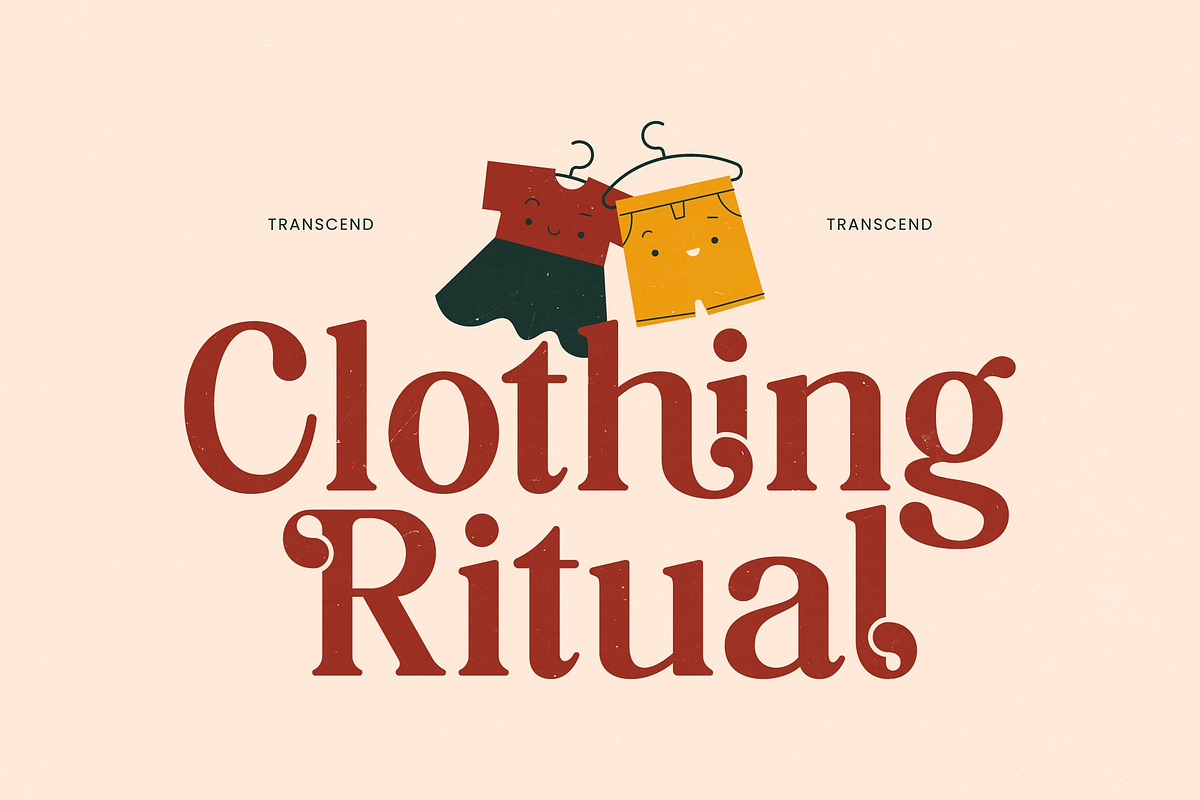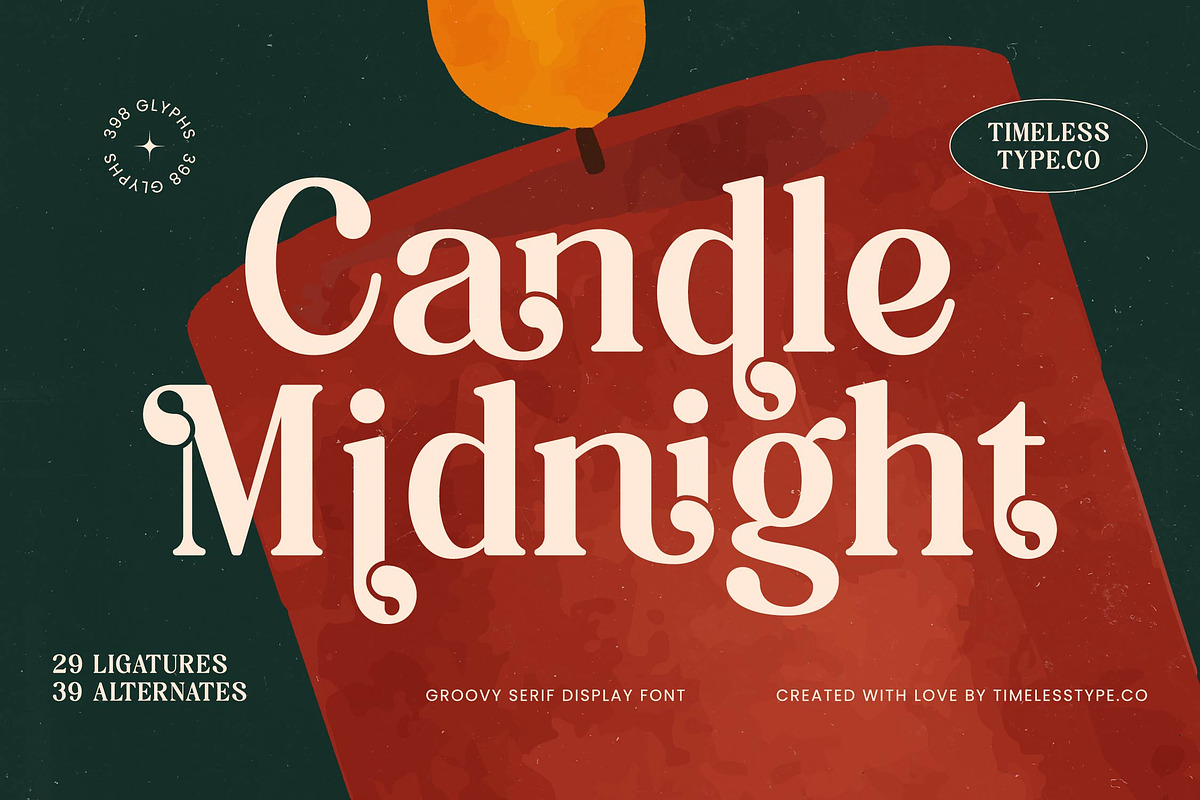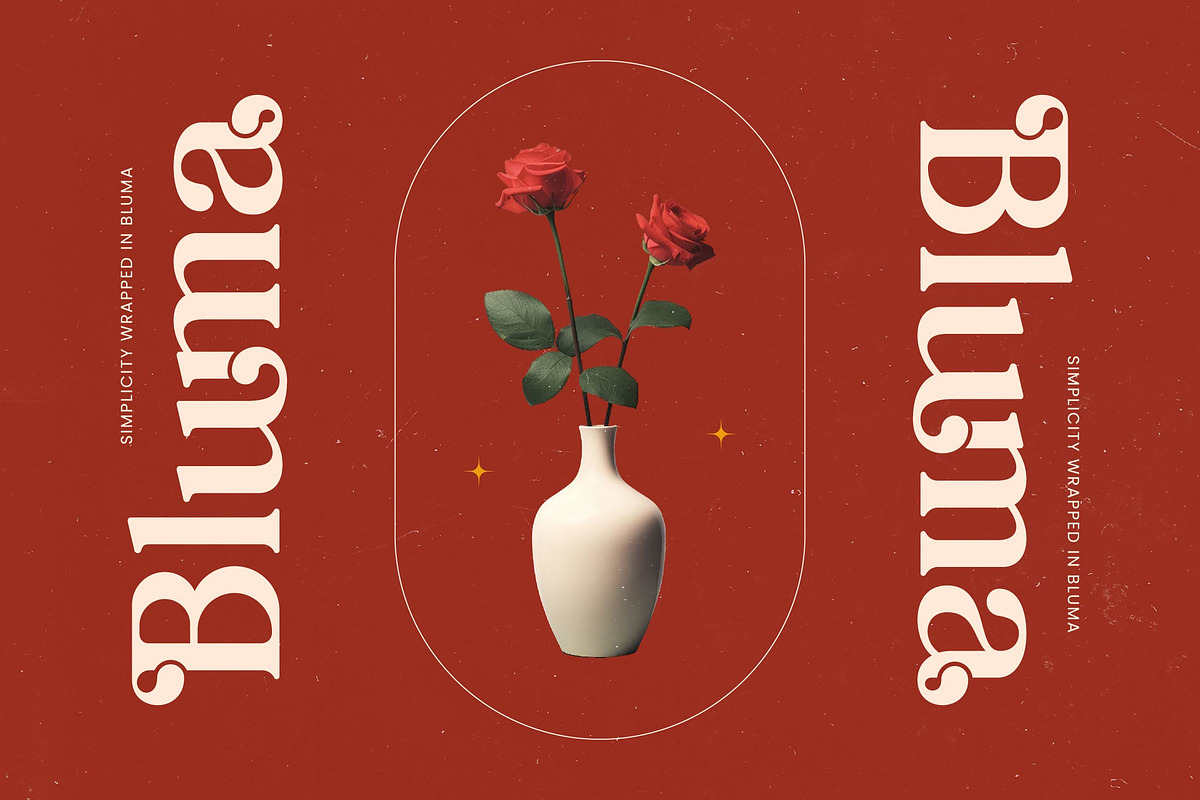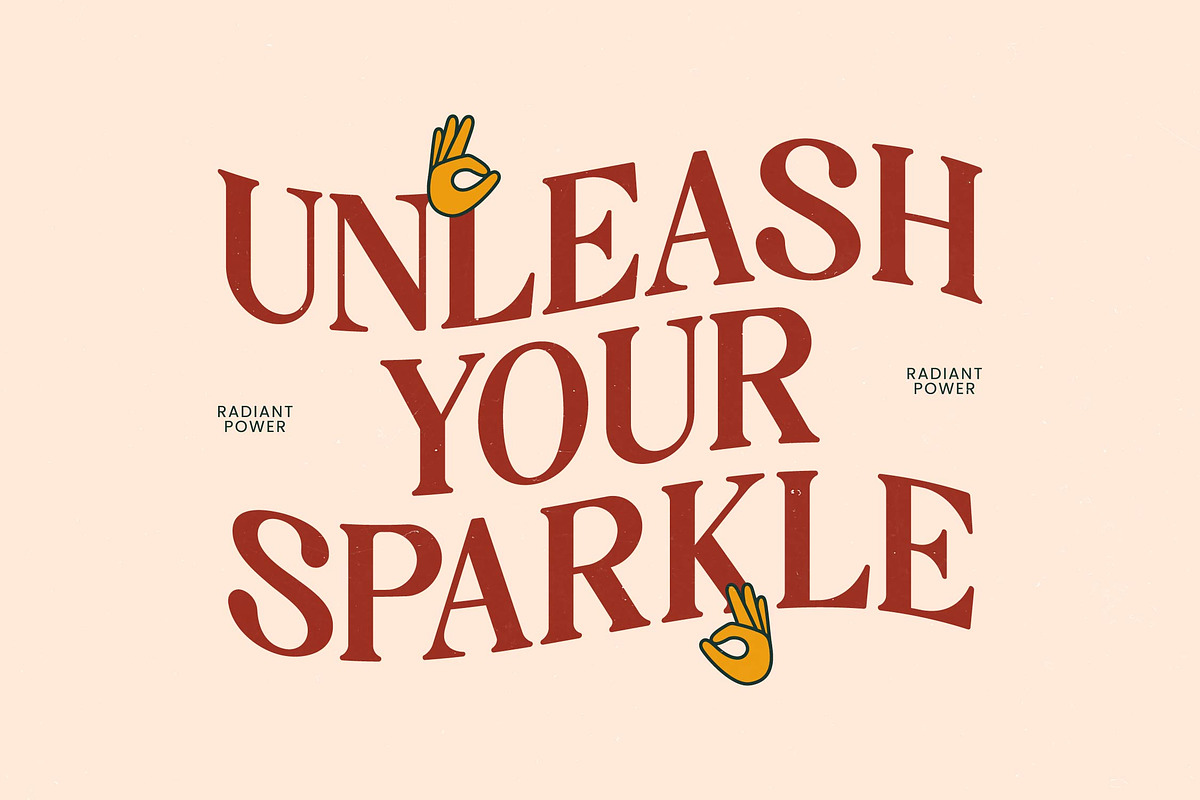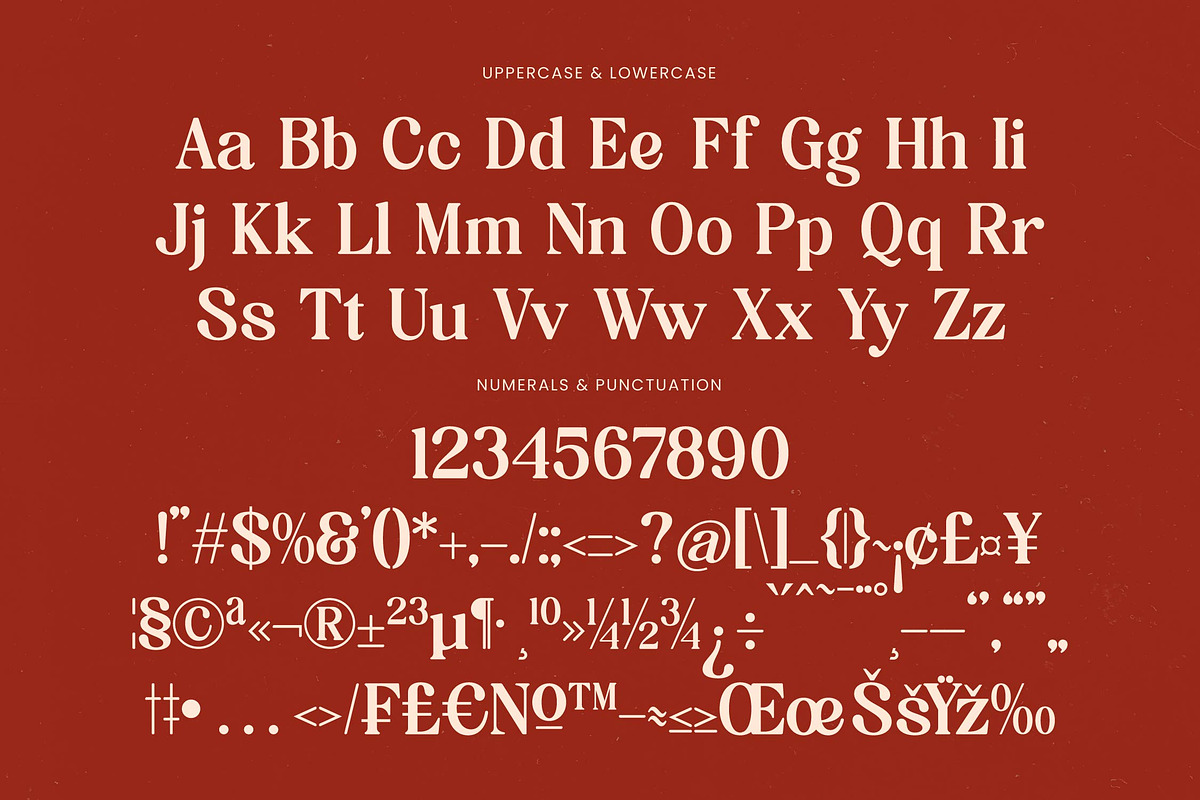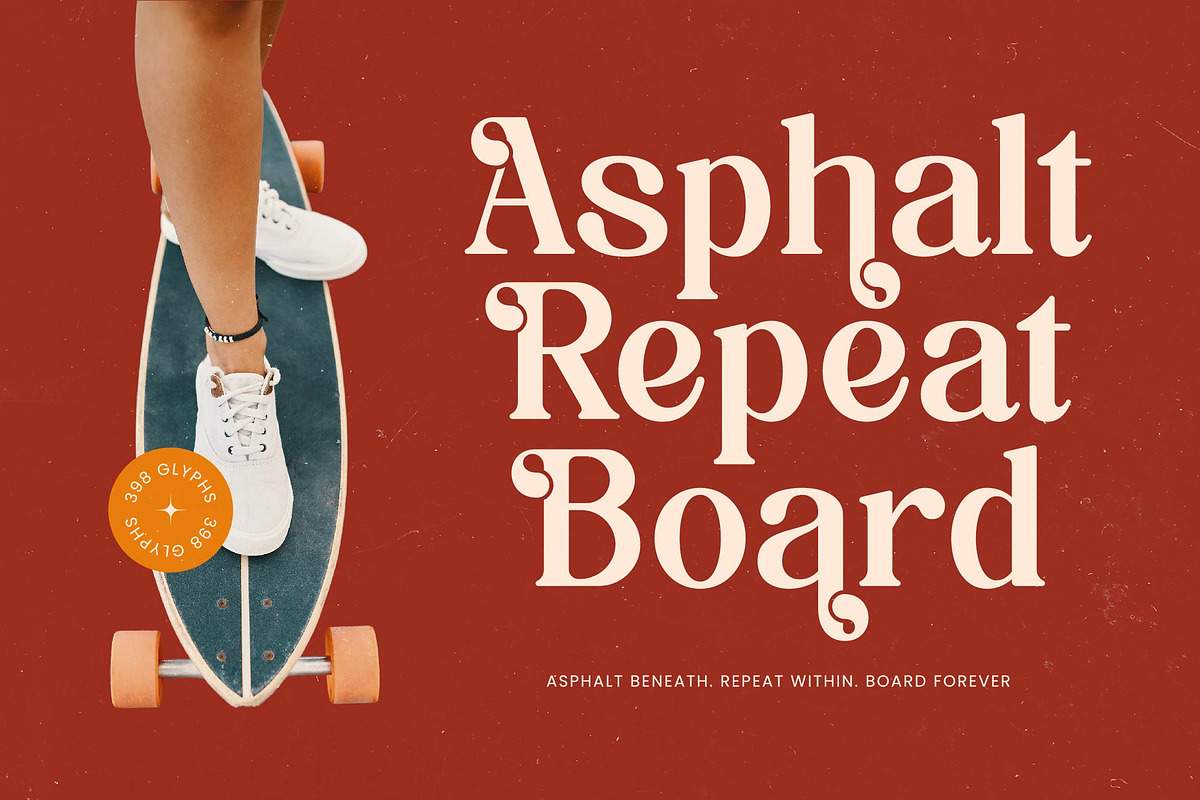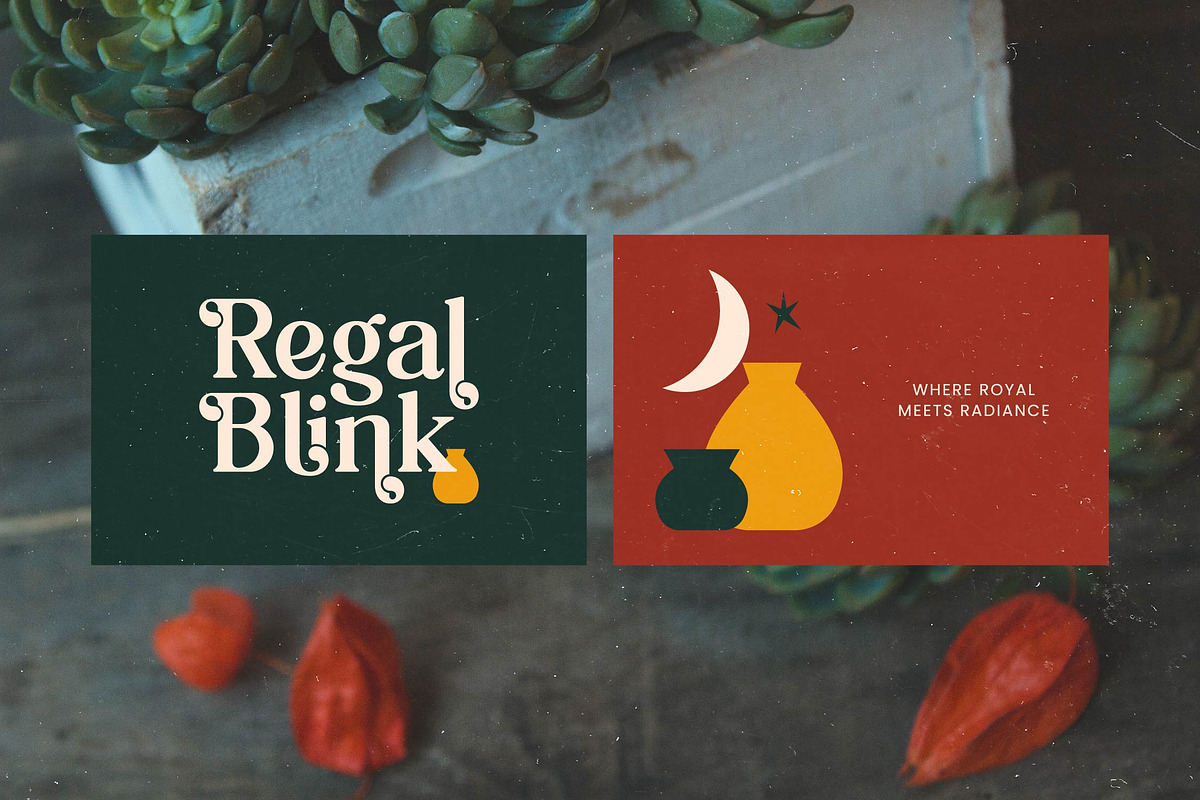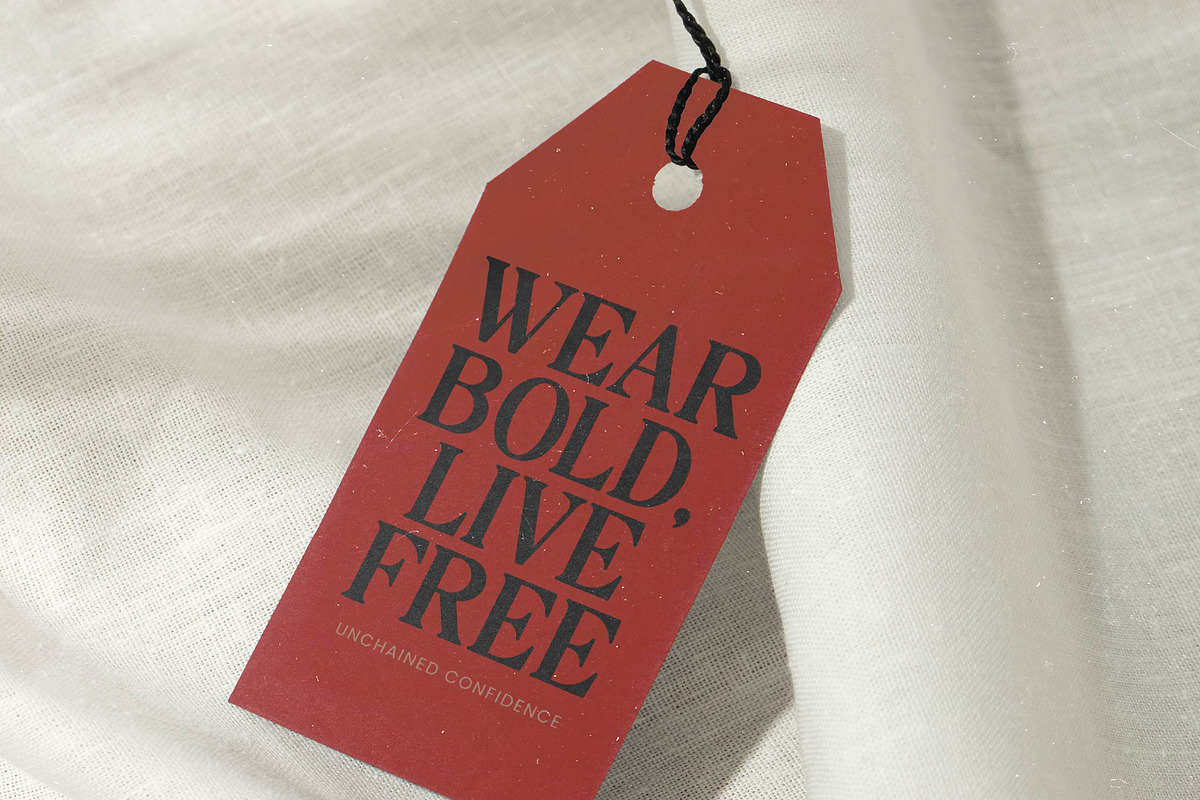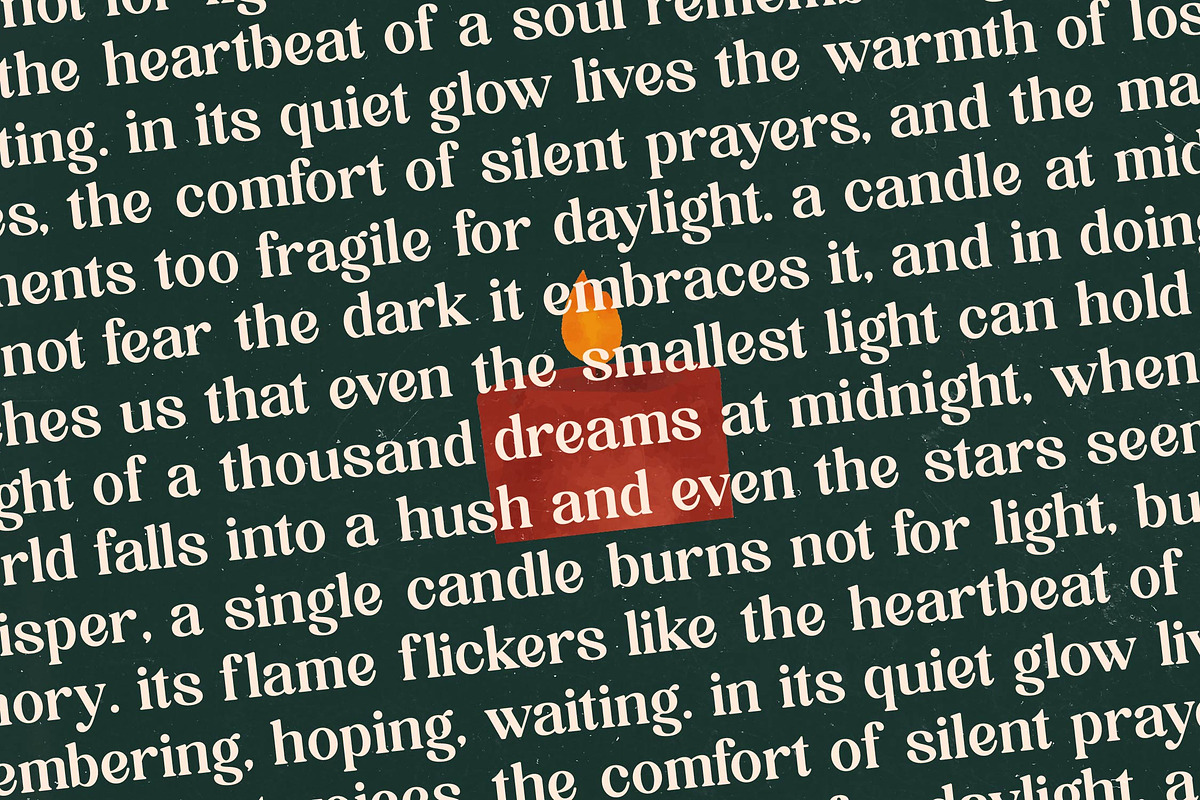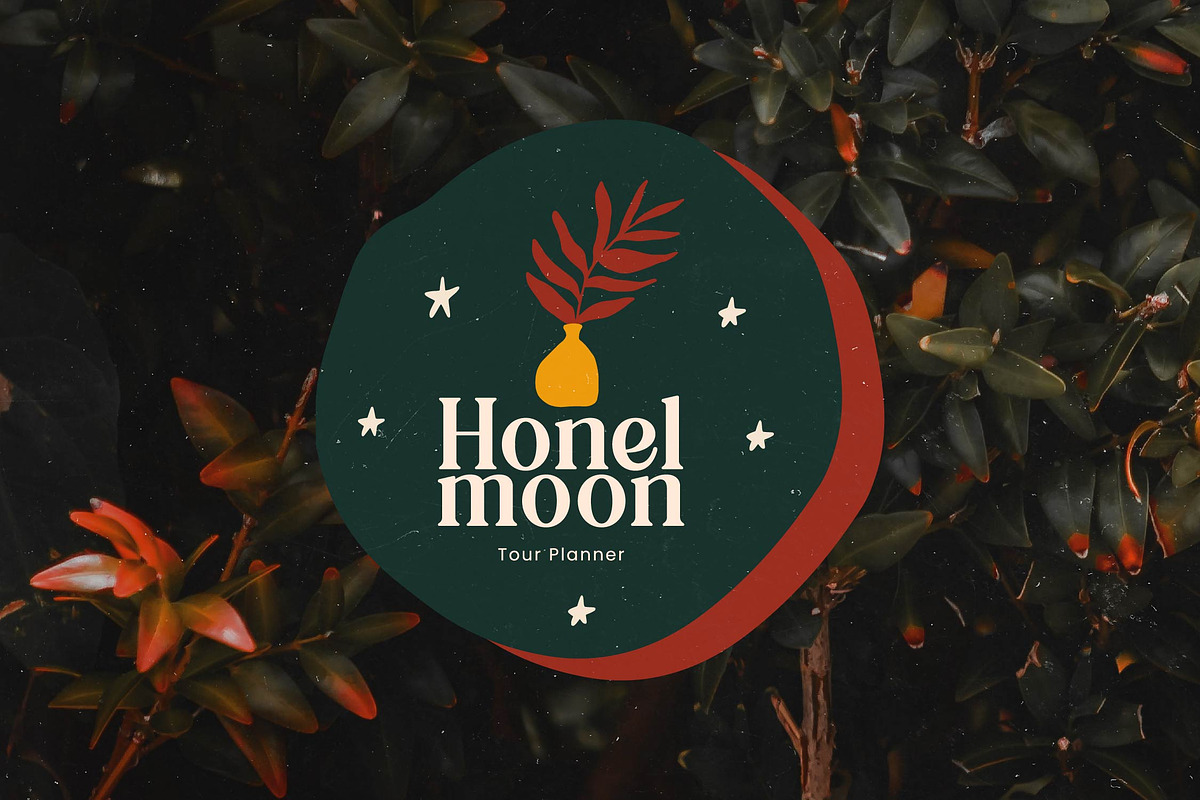
Candle Midnight Groovy Serif
Candle Midnight is a mesmerizing display serif that captures the essence of late-night elegance and rhythmic movement. This font breathes life into every character, offering a sophisticated yet playful dance across the page.
Inspired by the flickering glow of a single candle and the soft shadows of a midnight study, this typeface blends vintage 1970s nostalgia with a sharp, contemporary edge. Its fluid lines and organic curves evoke a sense of timeless storytelling and artisanal craftsmanship.
This modern serif display radiates confidence and grace, making it an essential tool for designers seeking a luxury typography solution. The high-contrast serif details create a striking visual rhythm that ensures a high-end editorial font feel and a massive branding impact.
Perfectly aligned with the current modern serif trend, this typeface meets the demand for editorial display fonts that feel both classic and cutting-edge. It stands out in a sea of minimalism by offering character-driven typography that feels deeply personal and expressive.
It is the ultimate choice for high-end logo design and comprehensive branding projects that require a touch of personality. From sophisticated editorial layouts and luxury packaging to romantic wedding stationery and avant-garde fashion campaigns, its versatility knows no bounds.
This font is packed with creative possibilities, including 29 unique ligatures and 39 beautiful alternates to customize your look. With a full set of swashes, extensive multilingual support, and a wide range of international characters, it is ready for any global creative endeavor.
- Ligature 29 Alternate 39